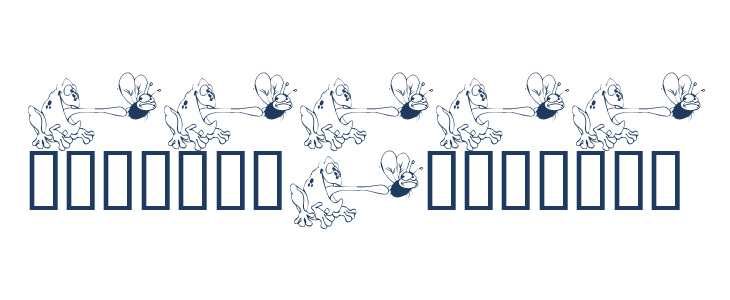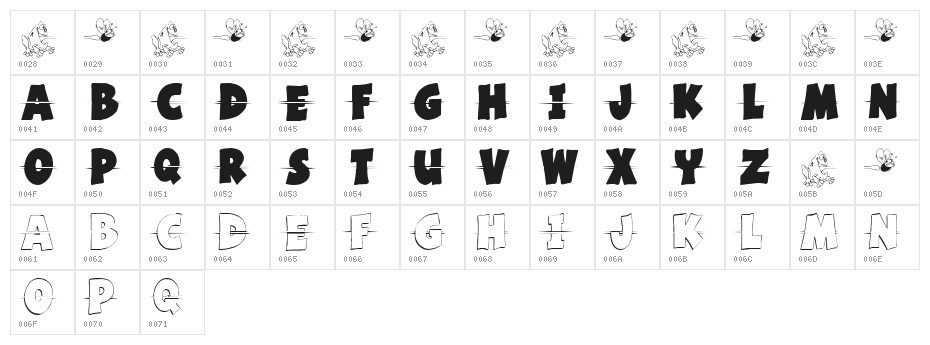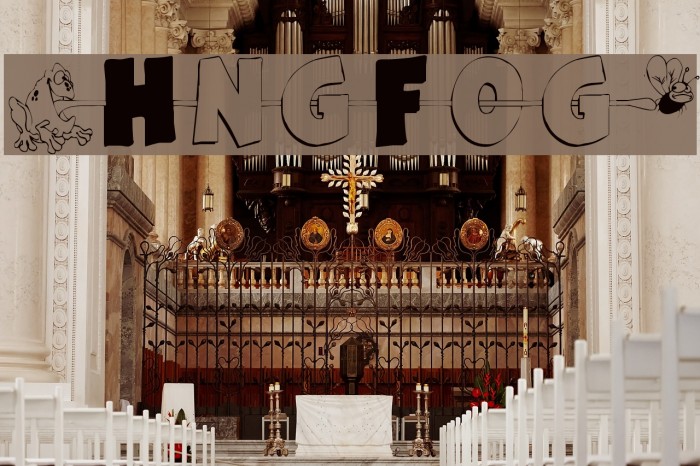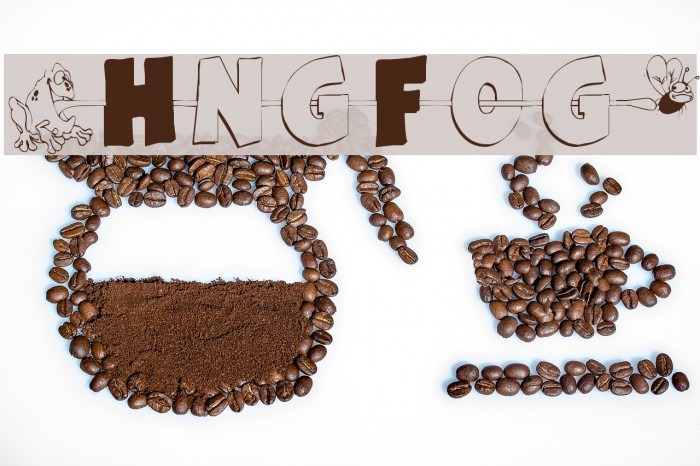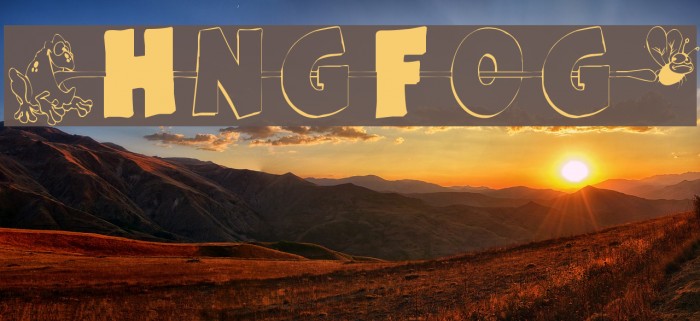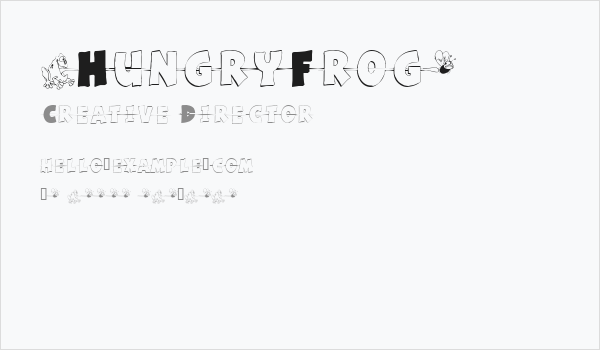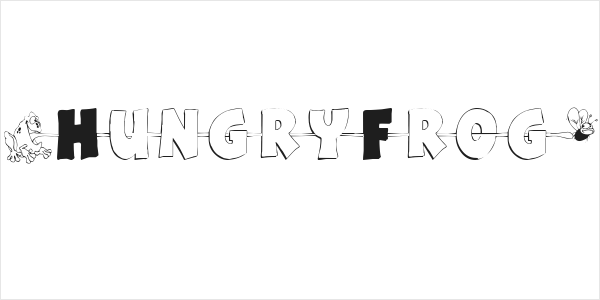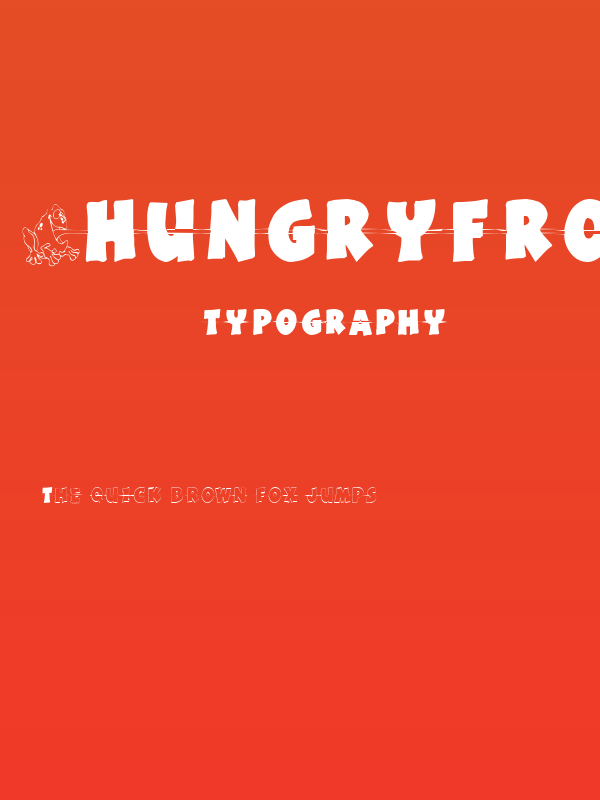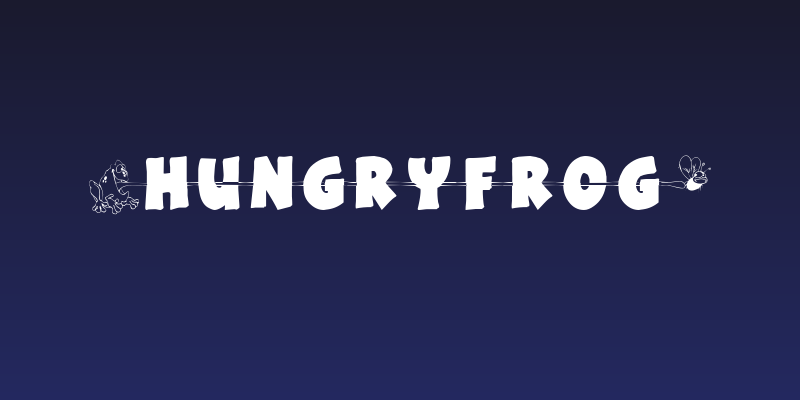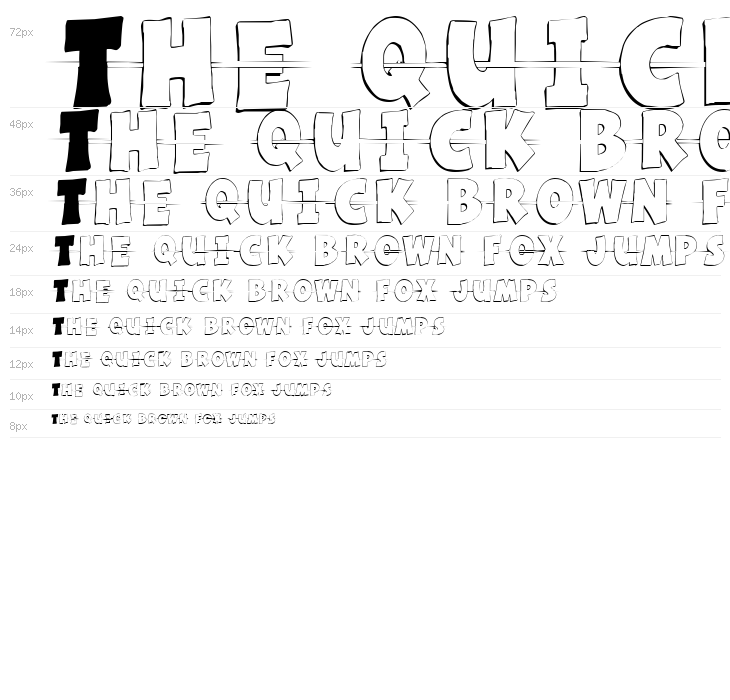
[HungryFrog] Font
[HungryFrog] Description
This playful and bold font features uppercase letters with a cartoonish, whimsical style. The characters are designed with exaggerated proportions and a sense of movement, making them ideal for capturing attention. The font includes a unique set of graphics featuring a frog and a fly, adding to its playful nature. The bold strokes and irregular shapes give it a dynamic and lively appearance, perfect for projects that require a fun and engaging look.
| Overall Style | Playful, Cartoonish |
| Use Case | Headlines, Logos, Children's materials |
| Proposed Projects | Ideal for children's books, comic strips, playful branding, and any project needing a fun, engaging typeface. |